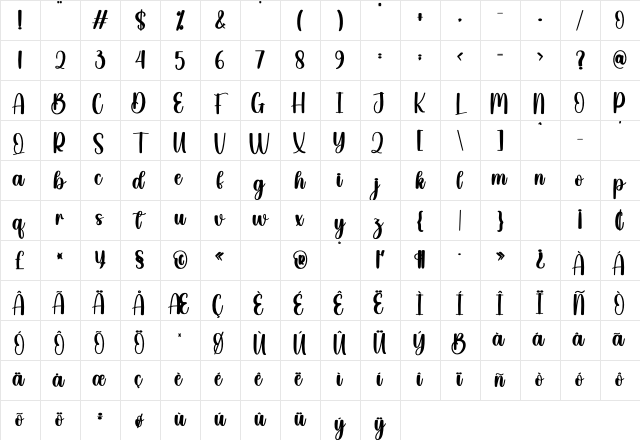
Baby Barbie Regular Free Font
Baby Barbie Regular
Design Context for Baby Barbie
Baby Barbie is a composed and adaptable typeface that performs quietly and consistently across a wide range of design contexts.